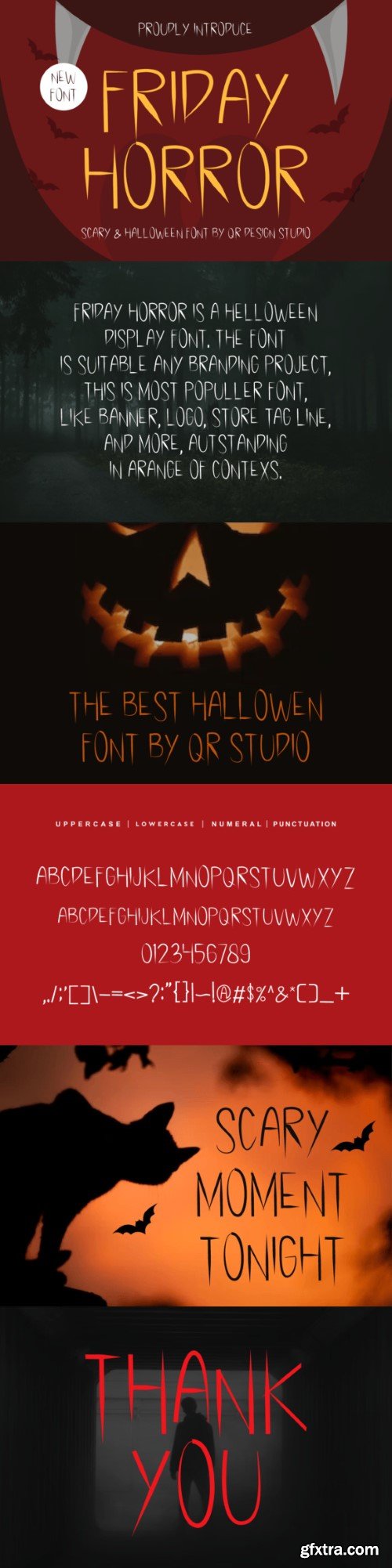
恐怖星期五字体
Friday Horror Font is a bold and authentic display font.
The font is suitable for any branding project like logo, sport, and many more.
Outstanding in a wide range of contexts.